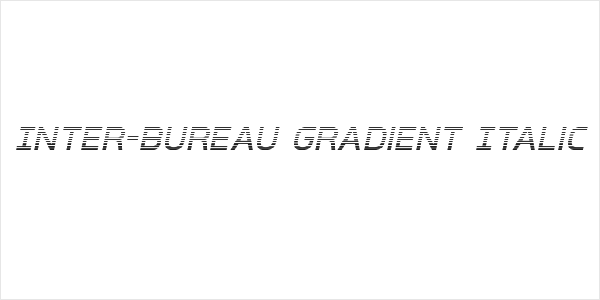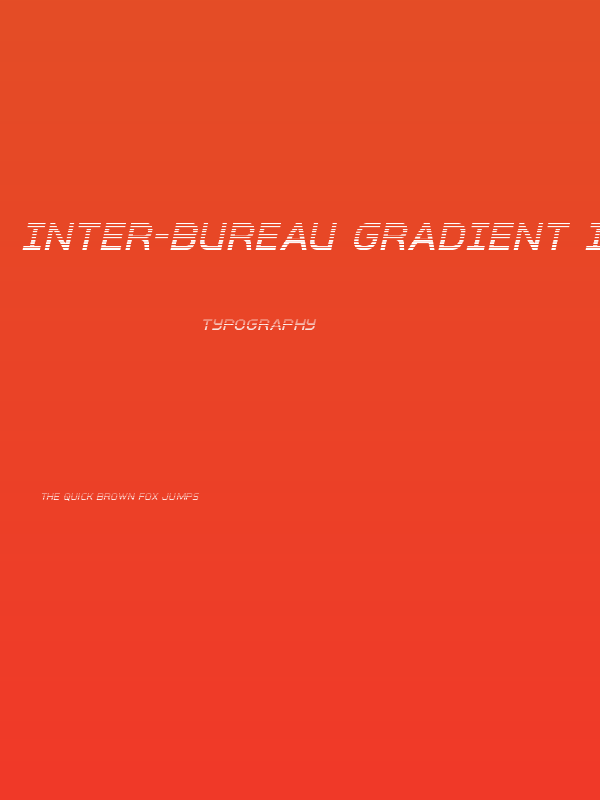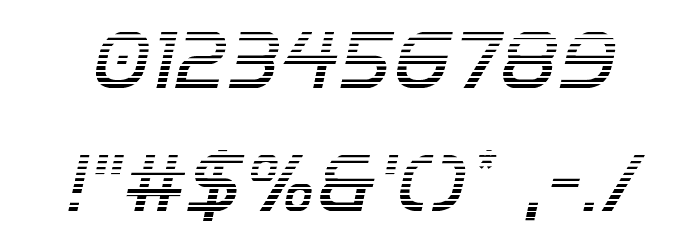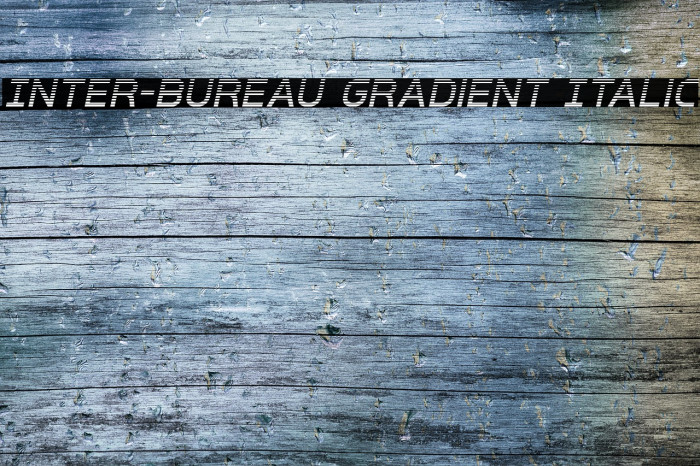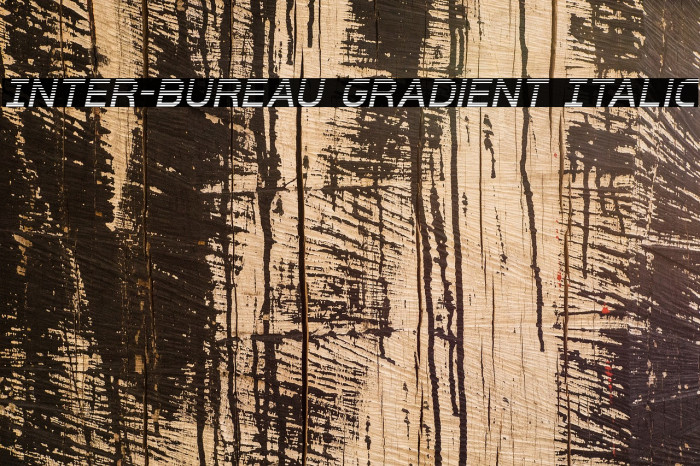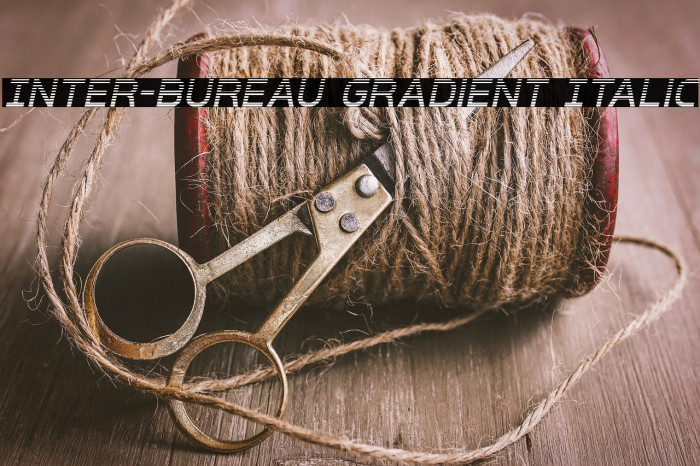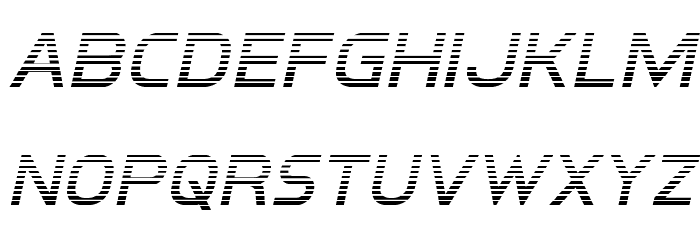
Inter-Bureau Gradient Italic Font
Inter-Bureau Gradient Italic Description
This font features a unique gradient effect with horizontal lines creating a dynamic and modern appearance. The italicized style adds a sense of motion and fluidity, making it stand out. Each character is composed of segmented lines that give a futuristic and digital feel. The uppercase and lowercase letters maintain a consistent style, while the numbers and special characters follow the same design principles. This font's distinct look is ideal for projects that require a contemporary and edgy aesthetic.
| Proposed Projects | Ideal for digital designs, tech branding, futuristic posters, and modern advertising campaigns. |